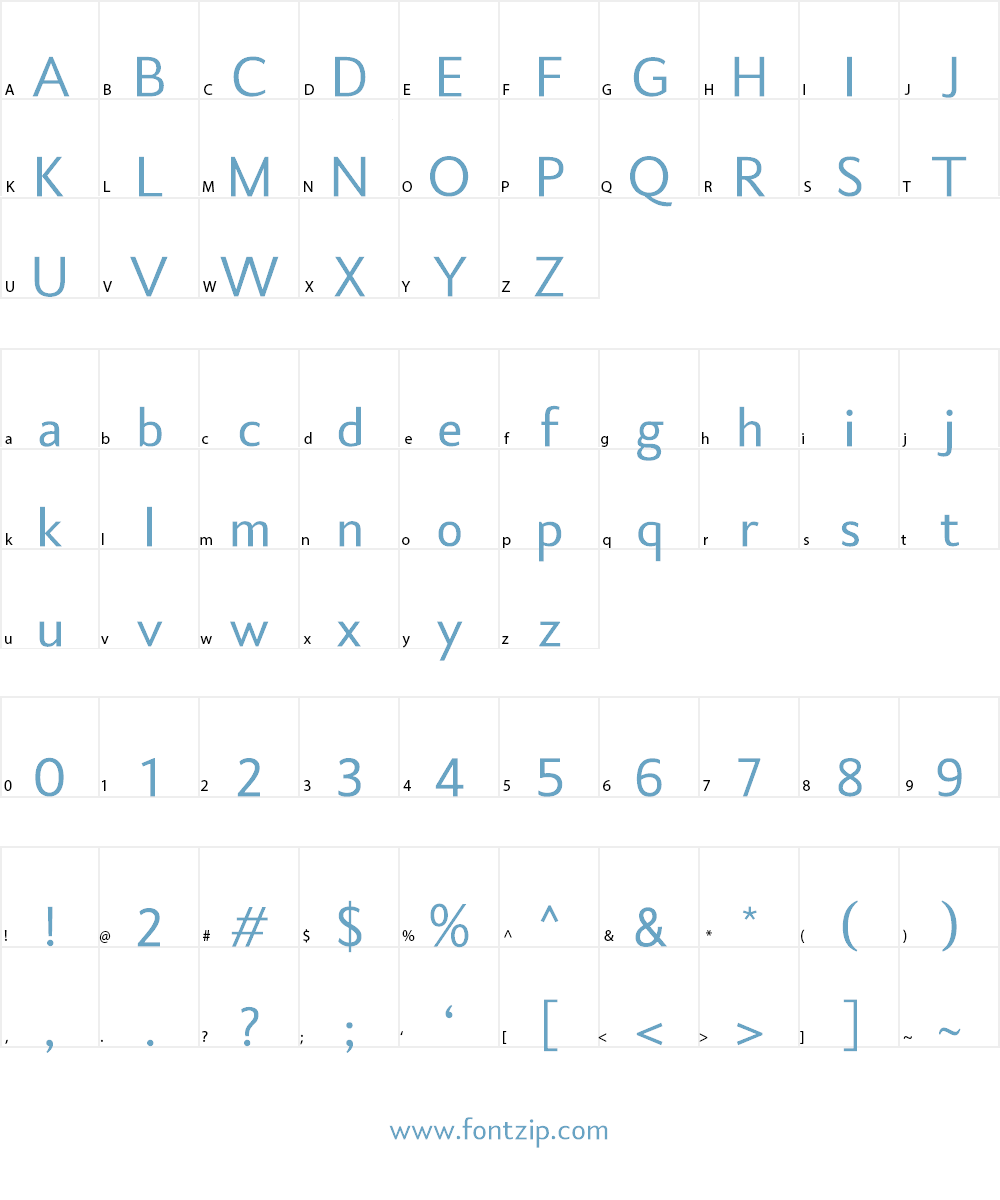
Blending ancient heritage with modern sensibilities, Tantular is a humanist sans-serif typeface tailored to create a unified and harmonious style between latin and the many scripts of Indonesia. Each script is assigned to certain font, this font contains latin and ancient javanese (or kawi) glyphs.